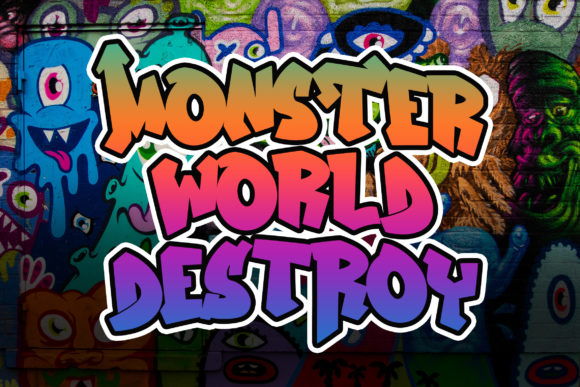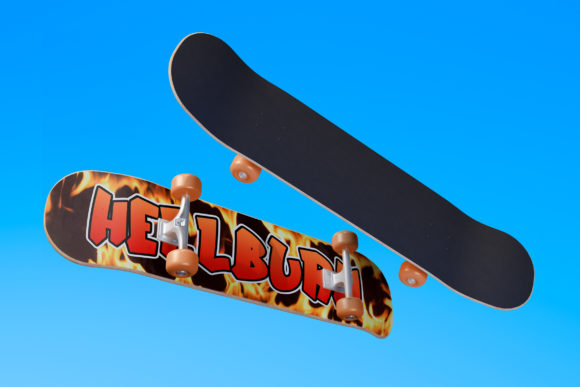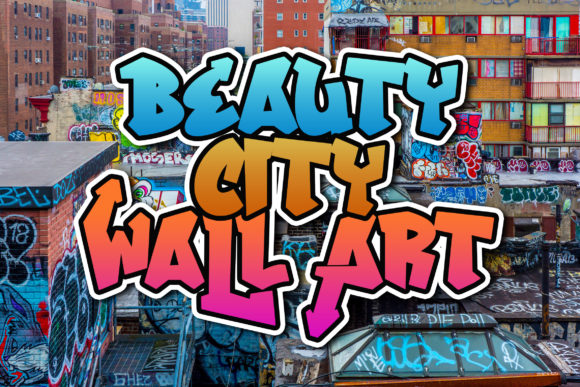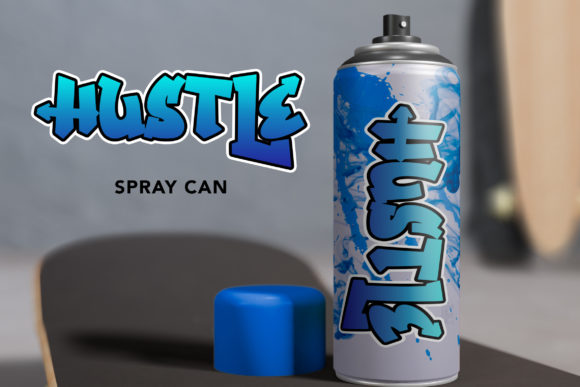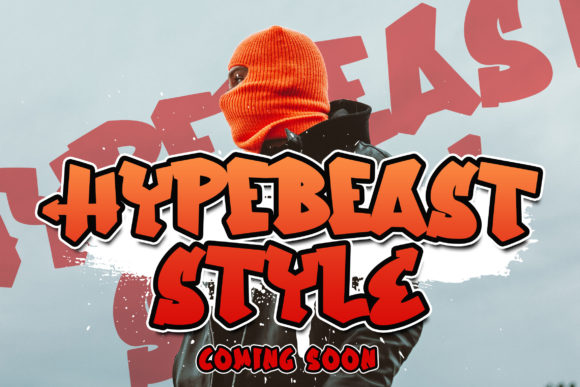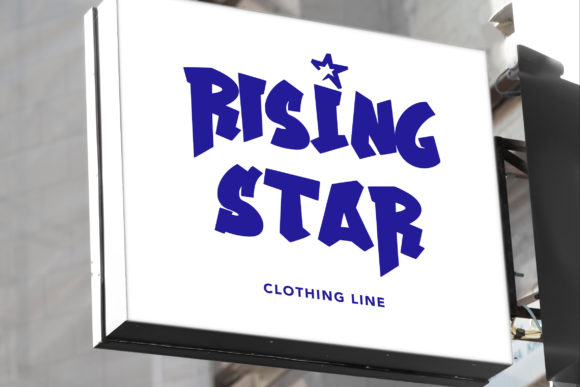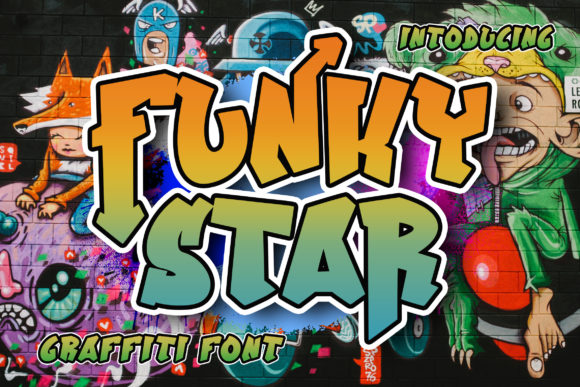
Funky Star Font: The Ultimate Display Font for Creative Designs
Are you tired of using the same old fonts for your designs? Look no further! Introducing the Funky Star Font, a cool, thick lettered, and bold display font that’s perfect for adding a touch of personality to your creations. In this article, we’ll dive into the features and benefits of Funky Star Font, and explore its endless possibilities for designers and crafters.
What is Funky Star Font?
Funky Star Font is a modern display font that’s designed to make a statement. Its thick, bold letters and cool styling make it perfect for use in a variety of design projects, from posters and flyers to social media graphics and branding materials. The font is PUA encoded, which means you can access all glyphs and swashes with ease, giving you maximum flexibility and creative control.
Key Features of Funky Star Font
- Cool and Bold Design: Funky Star Font features a unique and stylish design that’s sure to grab attention. Its thick letters and bold styling make it perfect for creating eye-catching headlines and titles.
- PUA Encoded: The font is PUA encoded, which means you can access all glyphs and swashes with ease. This makes it easy to customize your text and add your own personal touch.
- Endless Possibilities: With Funky Star Font, the possibilities are endless. Use it for posters, flyers, social media graphics, branding materials, and more.
Benefits of Using Funky Star Font
So why choose Funky Star Font for your designs? Here are just a few benefits of using this amazing font:
- Adds Personality to Your Designs: Funky Star Font is the perfect way to add a touch of personality to your designs. Its unique and stylish design makes it stand out from the crowd.
- Increases Readability: The bold and thick letters of Funky Star Font make it easy to read, even at small sizes.
- Versatile: The font is versatile and can be used in a variety of design projects, from posters and flyers to social media graphics and branding materials.
- Customize Your Text: Use the PUA encoded glyphs and swashes to customize your text and add your own personal touch.
Design Ideas Using Funky Star Font
- Posters and Flyers: Use Funky Star Font to create eye-catching posters and flyers for events, promotions, and more.
- Social Media Graphics: Use the font to create social media graphics that stand out from the crowd.
- Branding Materials: Use Funky Star Font to create professional-looking branding materials, such as business cards and brochures.
- Crafting Projects: Use the font to add a personal touch to your crafting projects, such as handmade cards and scrapbooking pages.
In conclusion, Funky Star Font is a cool, thick lettered, and bold display font that’s perfect for designers and crafters who want to add a touch of personality to their designs. With its PUA encoded glyphs and swashes, endless possibilities, and ease of use, Funky Star Font is a must-have for anyone looking to take their designs to the next level.